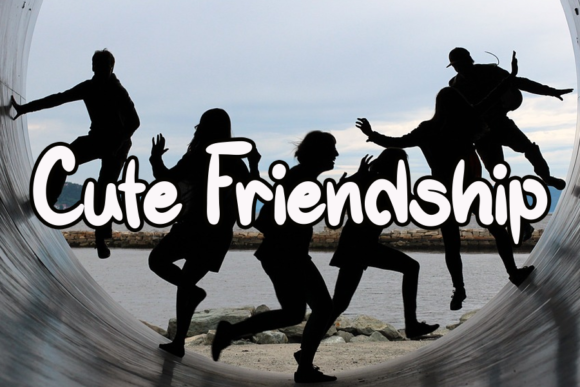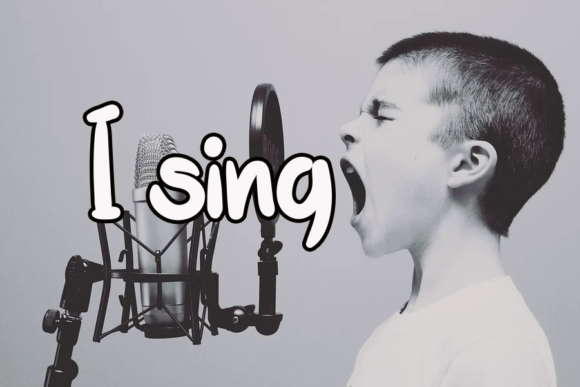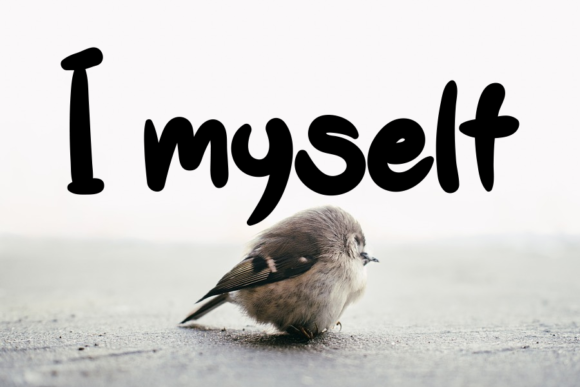
About Amusing Font
Amusing is a simple, relaxed and asymmetrical handwritten font. Incredibly versatile, this font fits a wide pool of designs, elevating them to the highest levels.